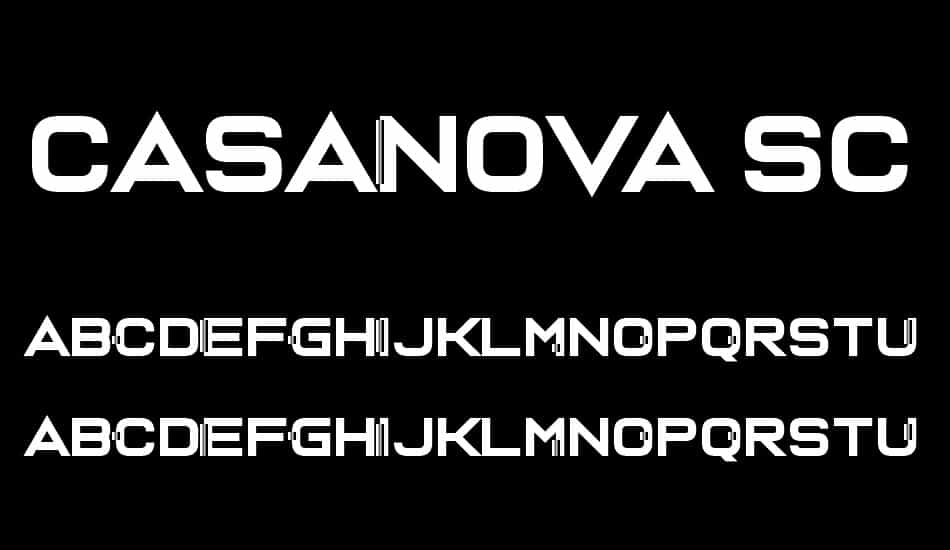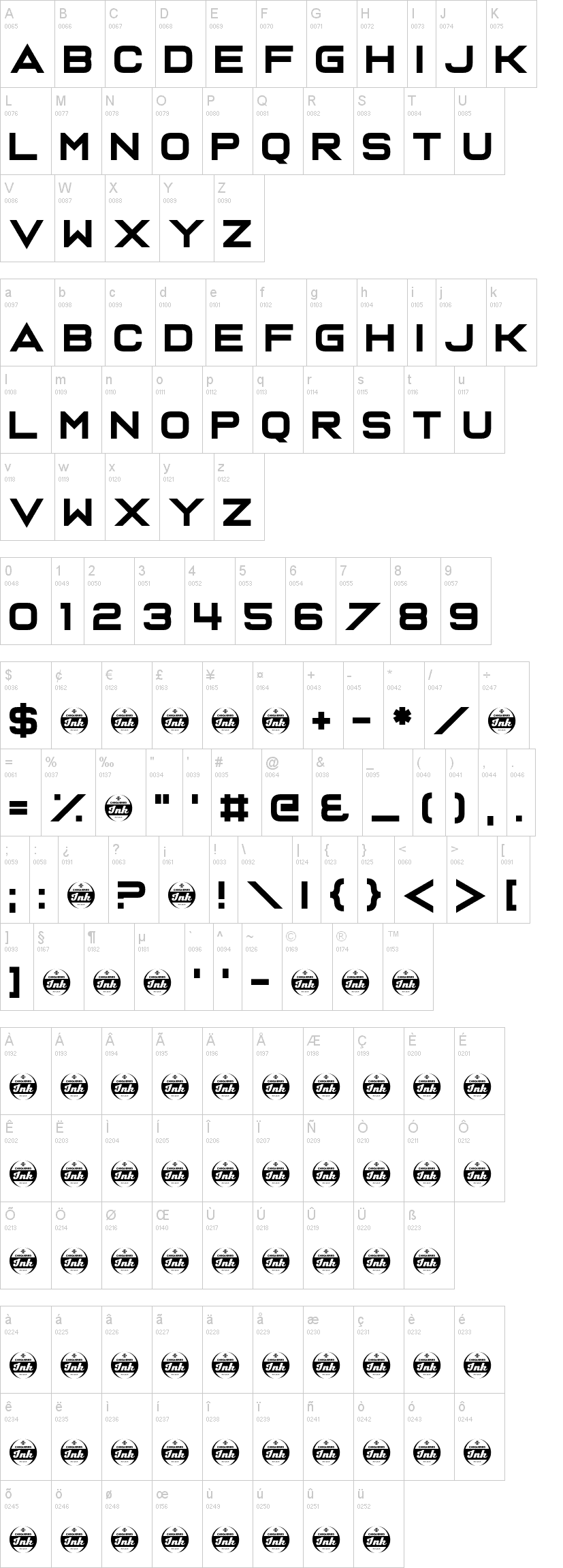
Casanova Scotia is a versatile Sans serif typeface designed by Chequered Ink which is available for free download and use for personal purposes. This version contains all the small letters and some of the special characters too.